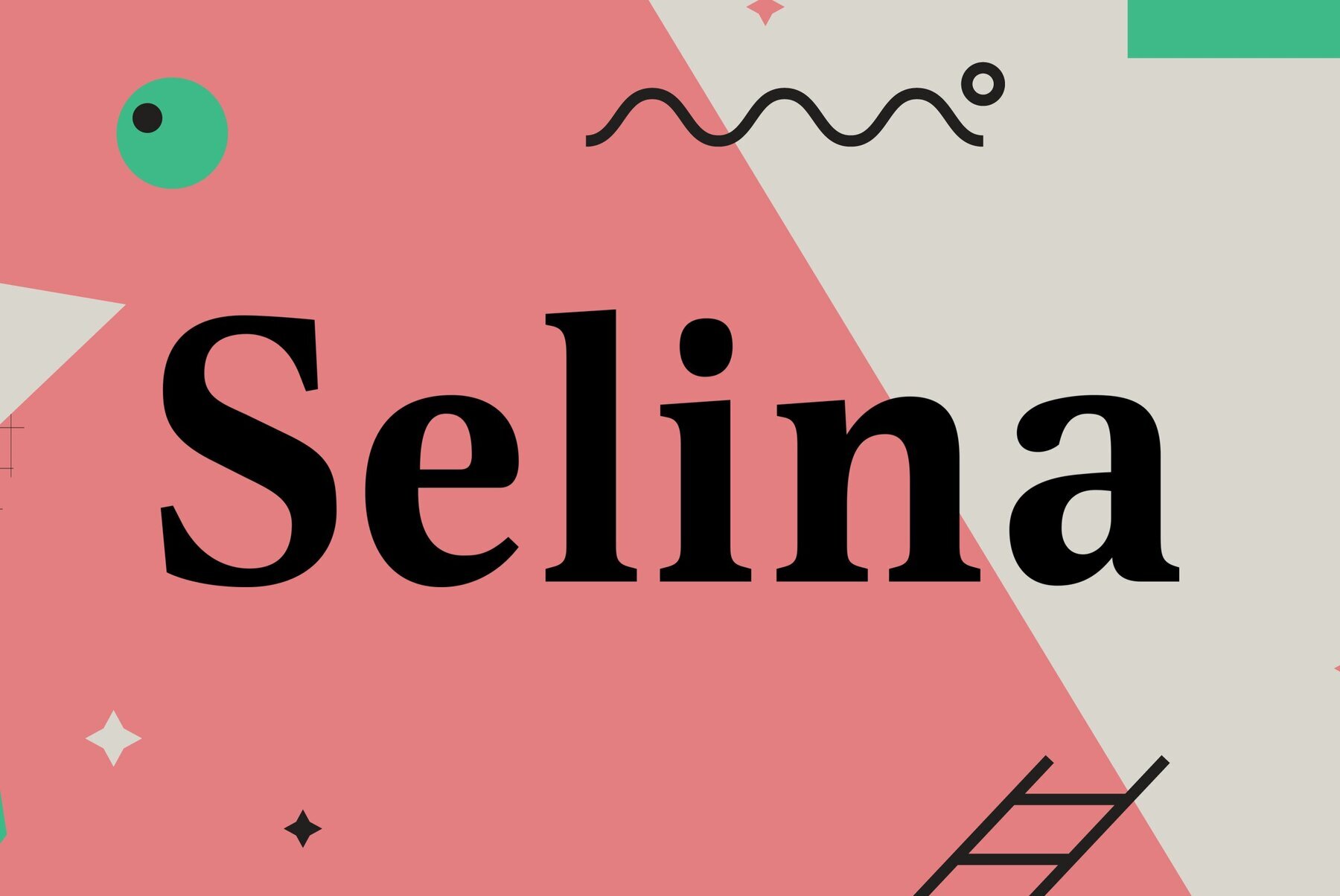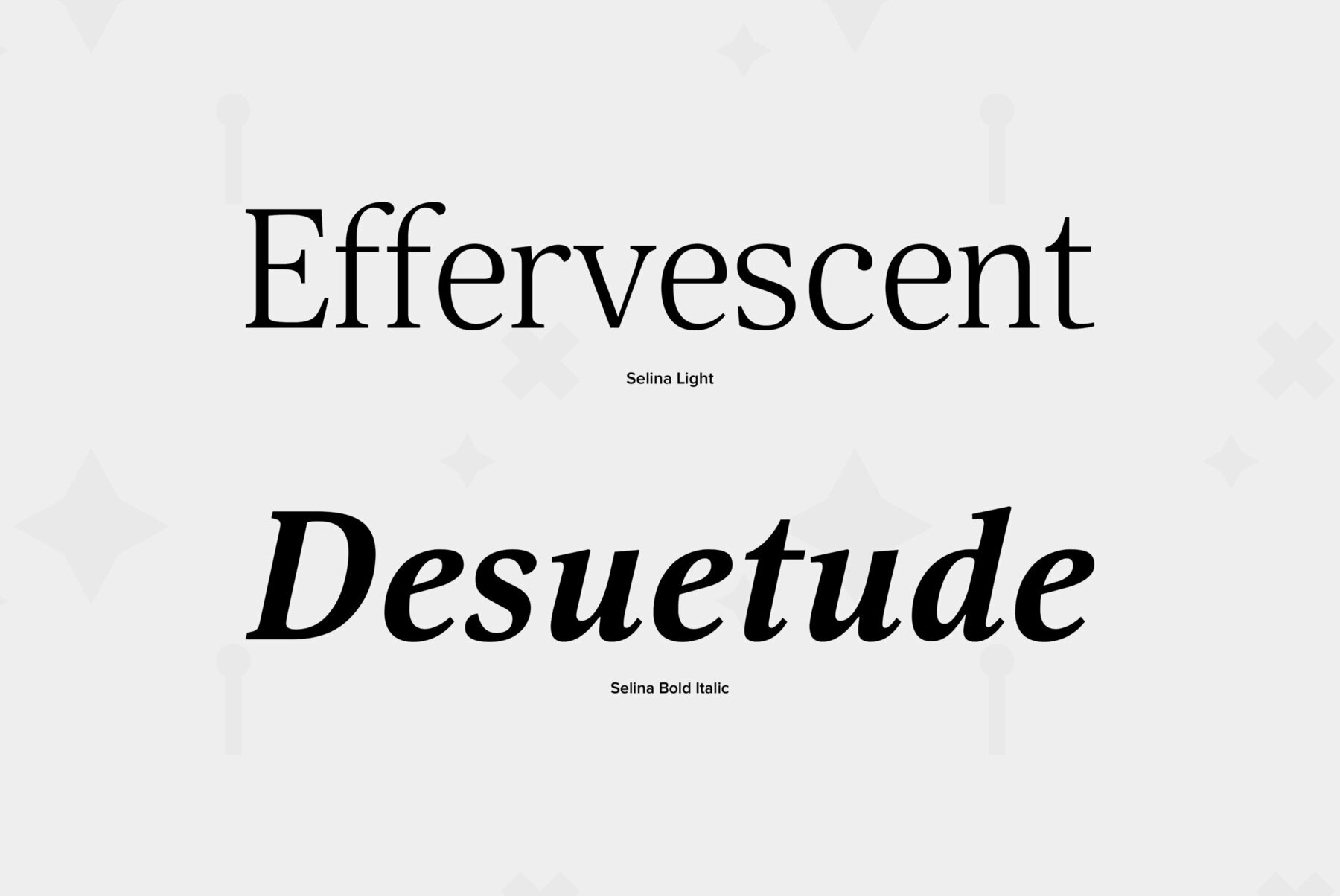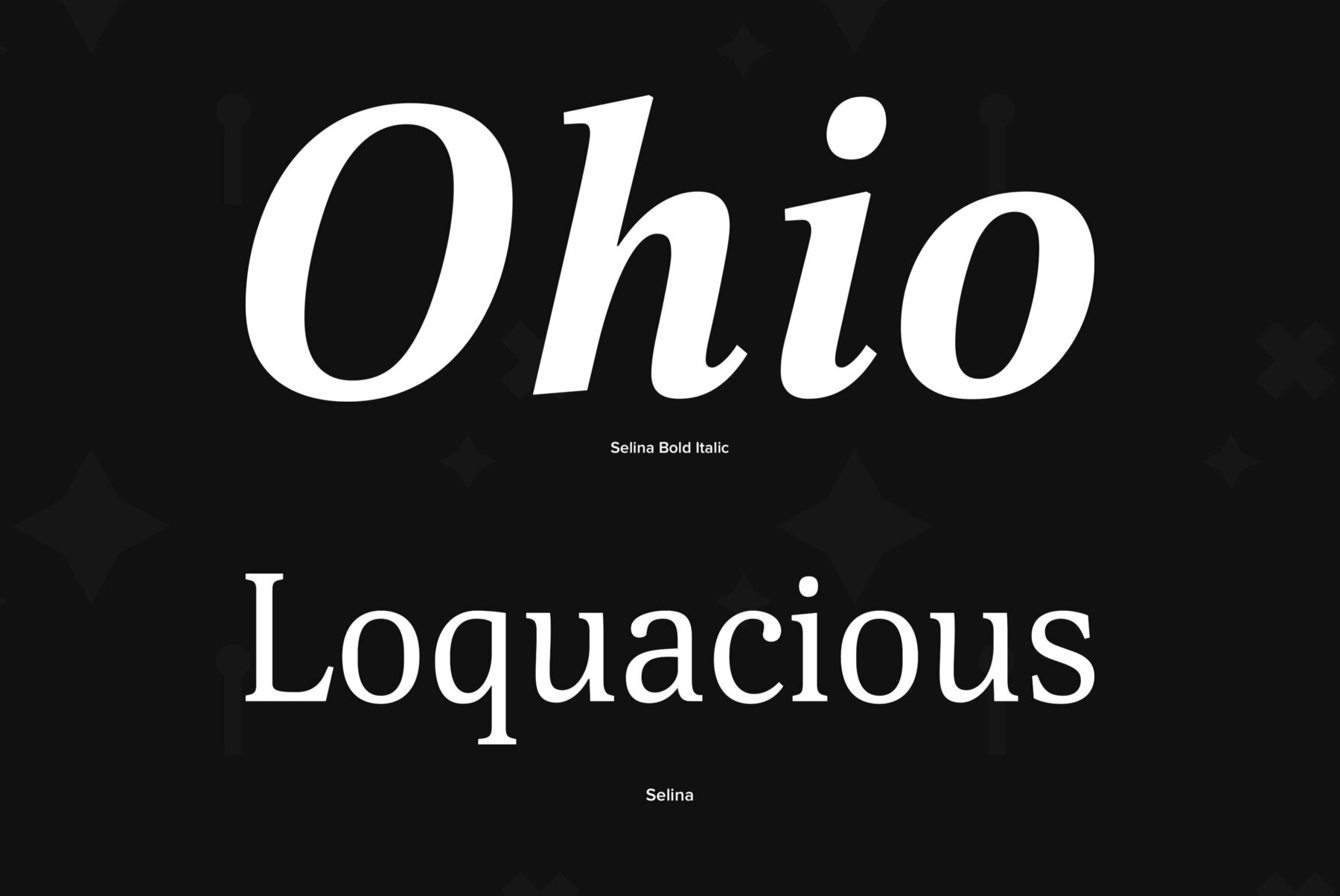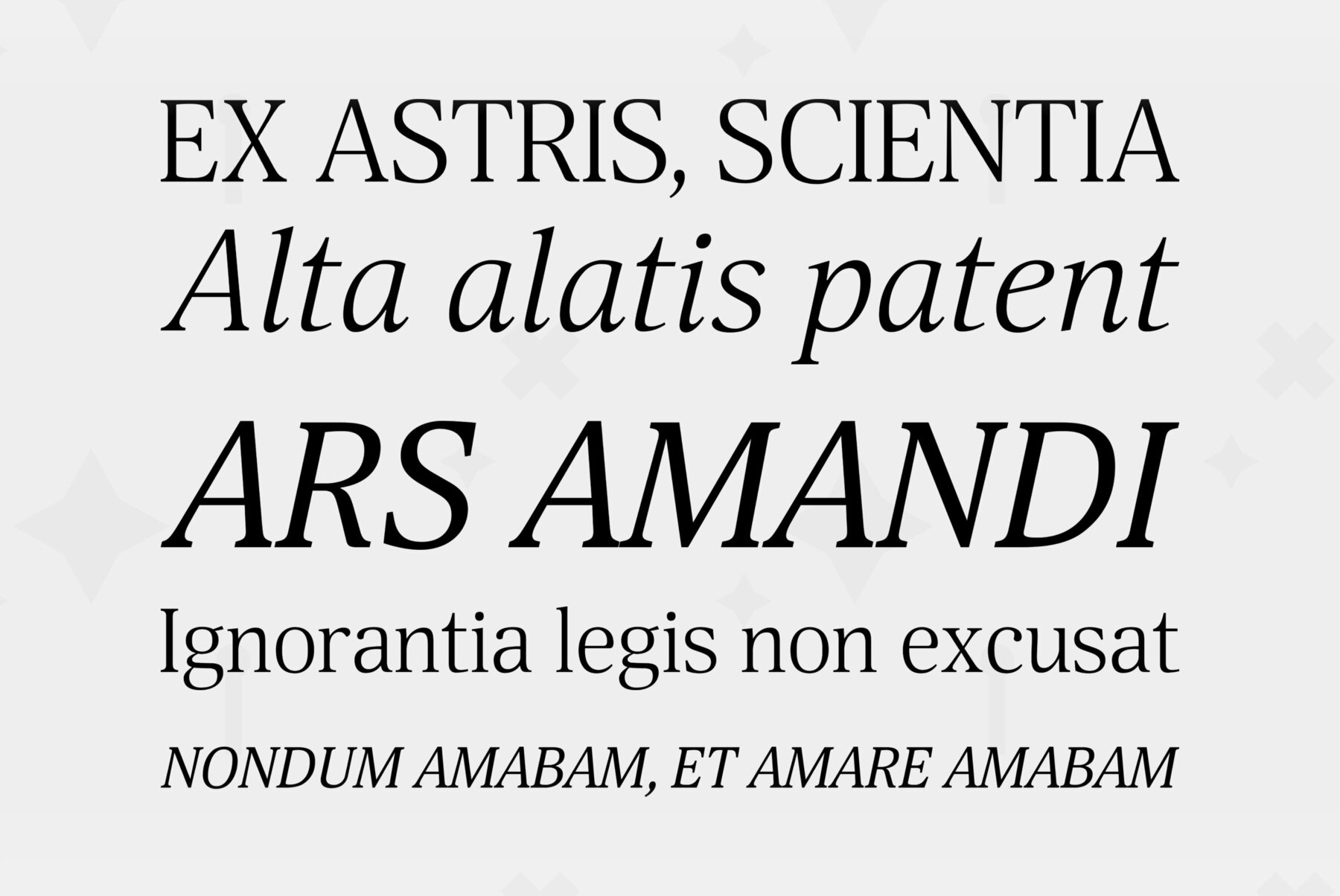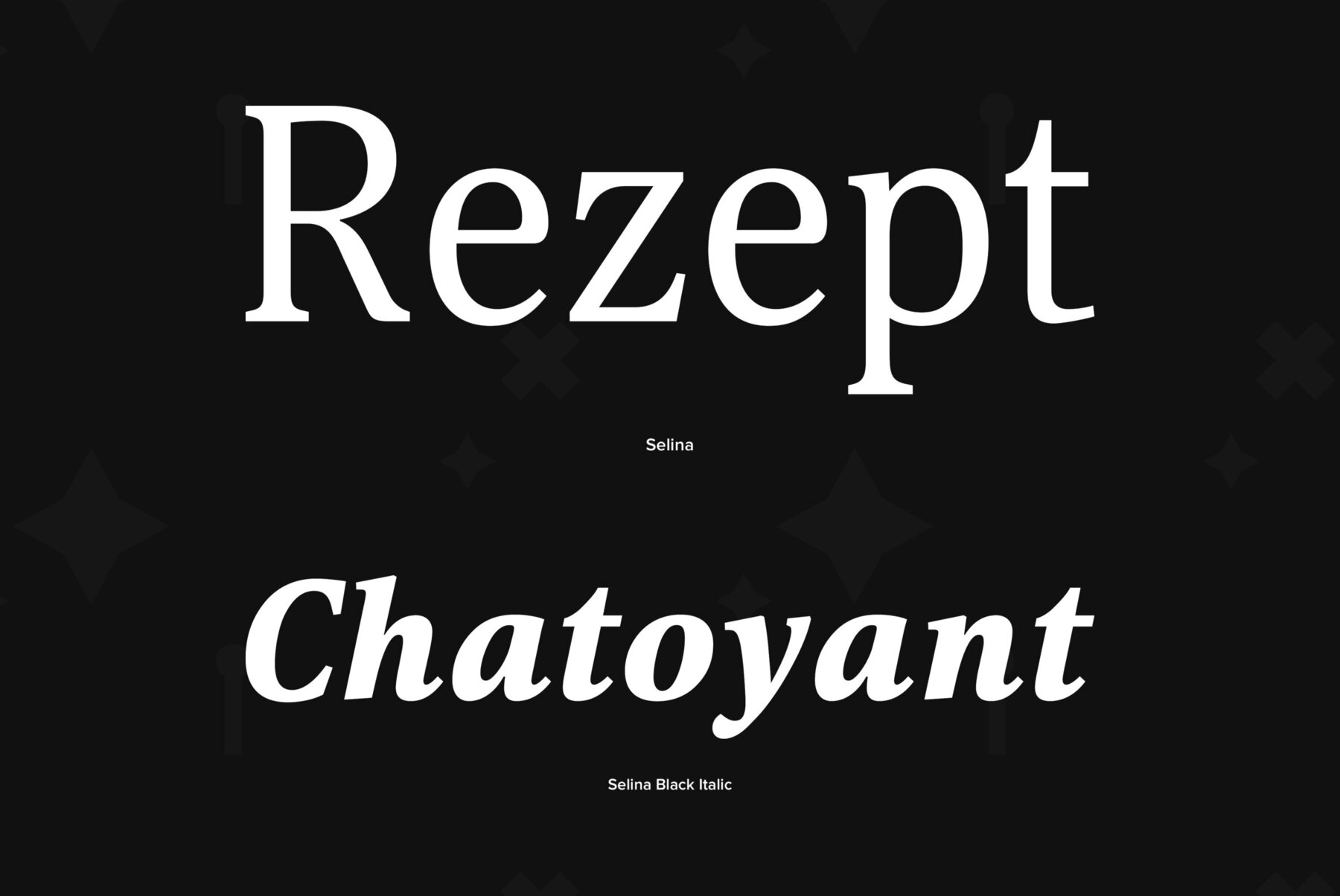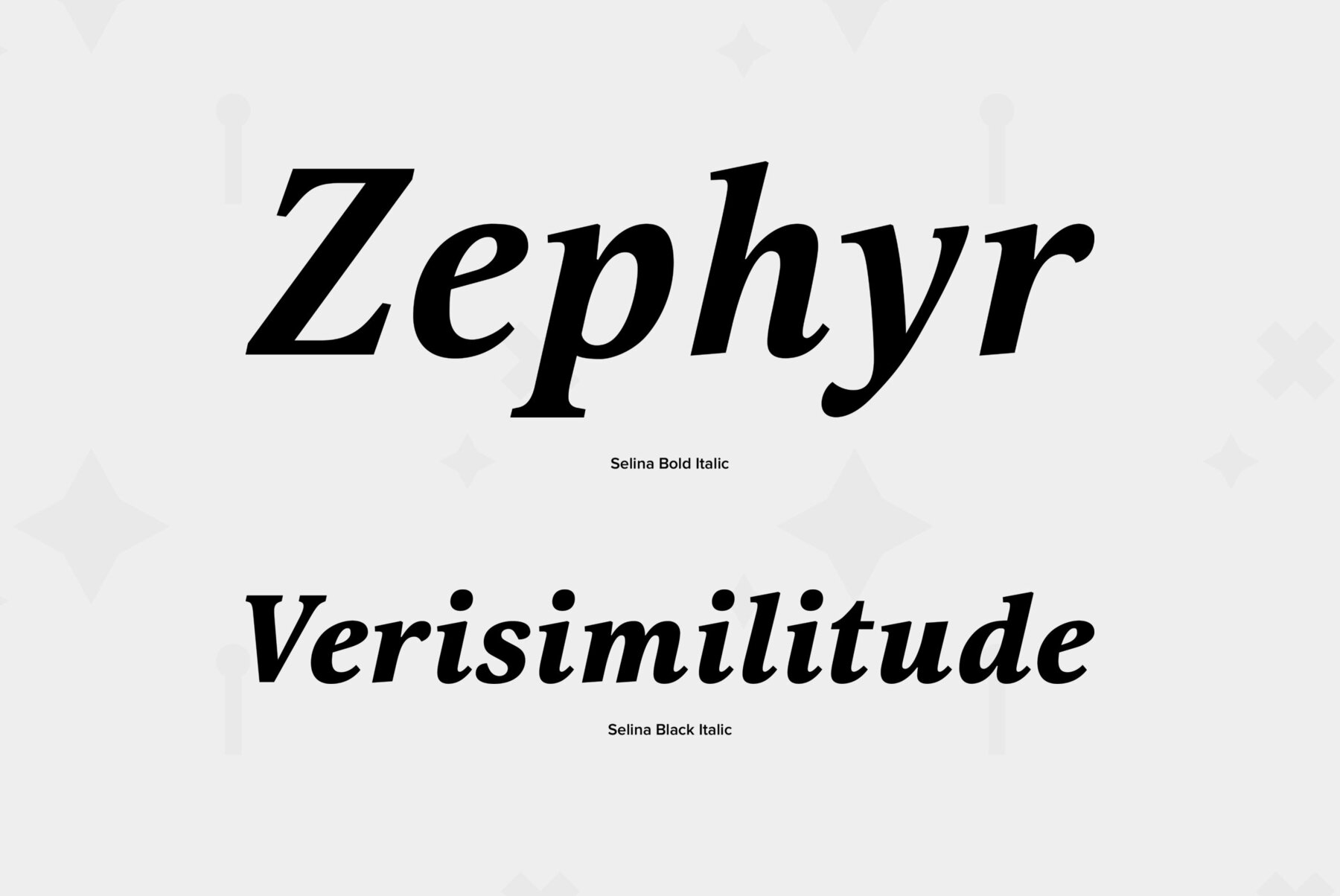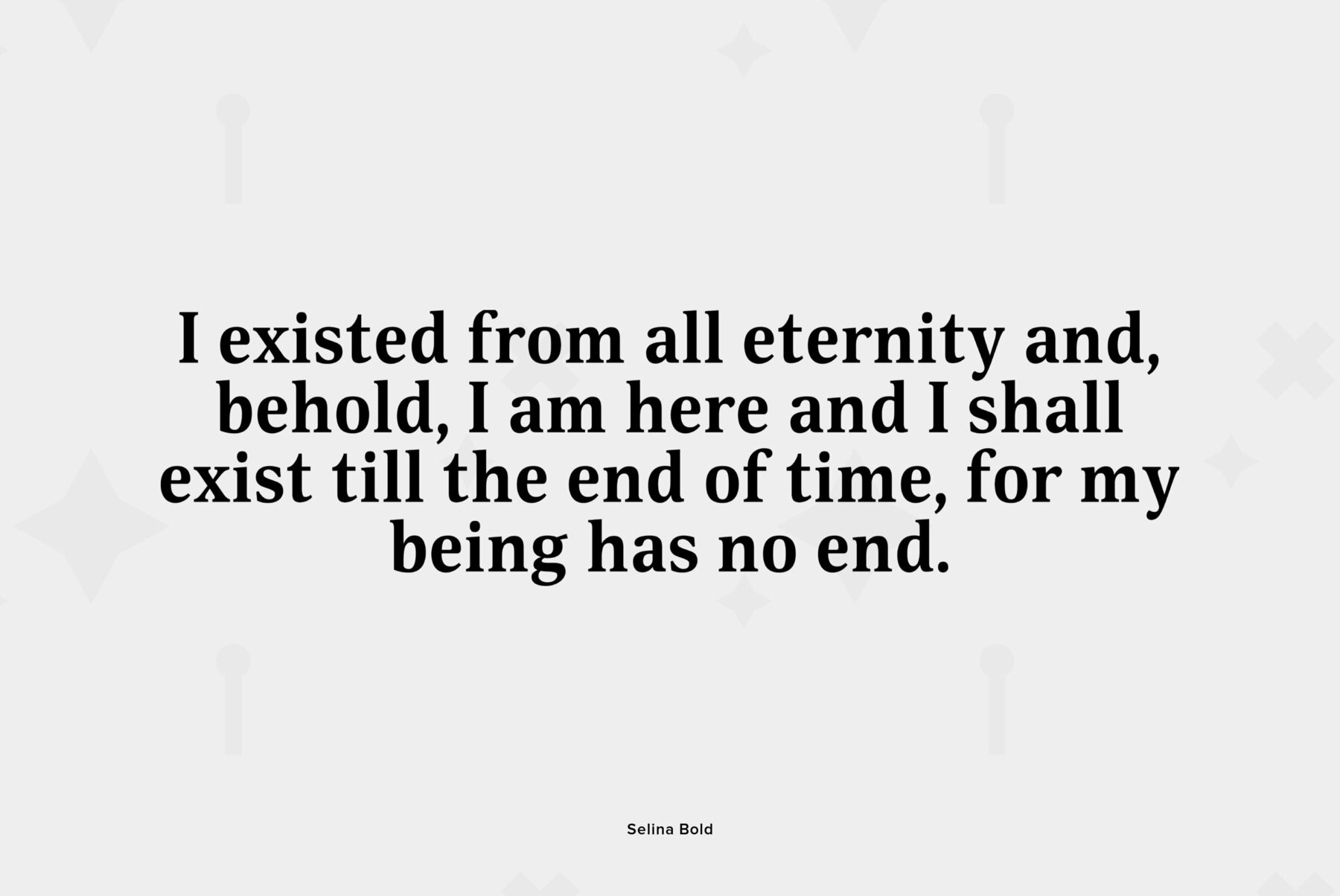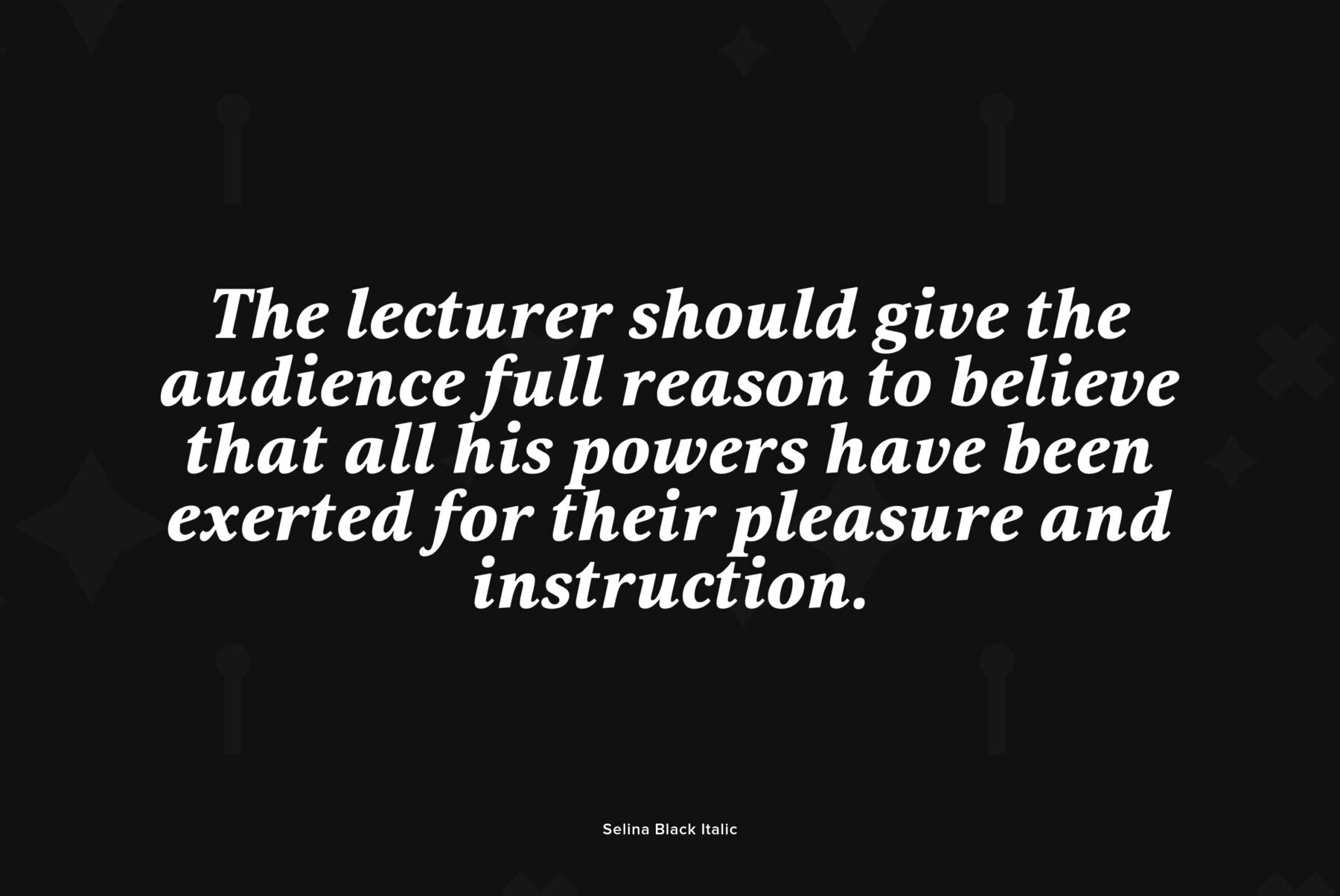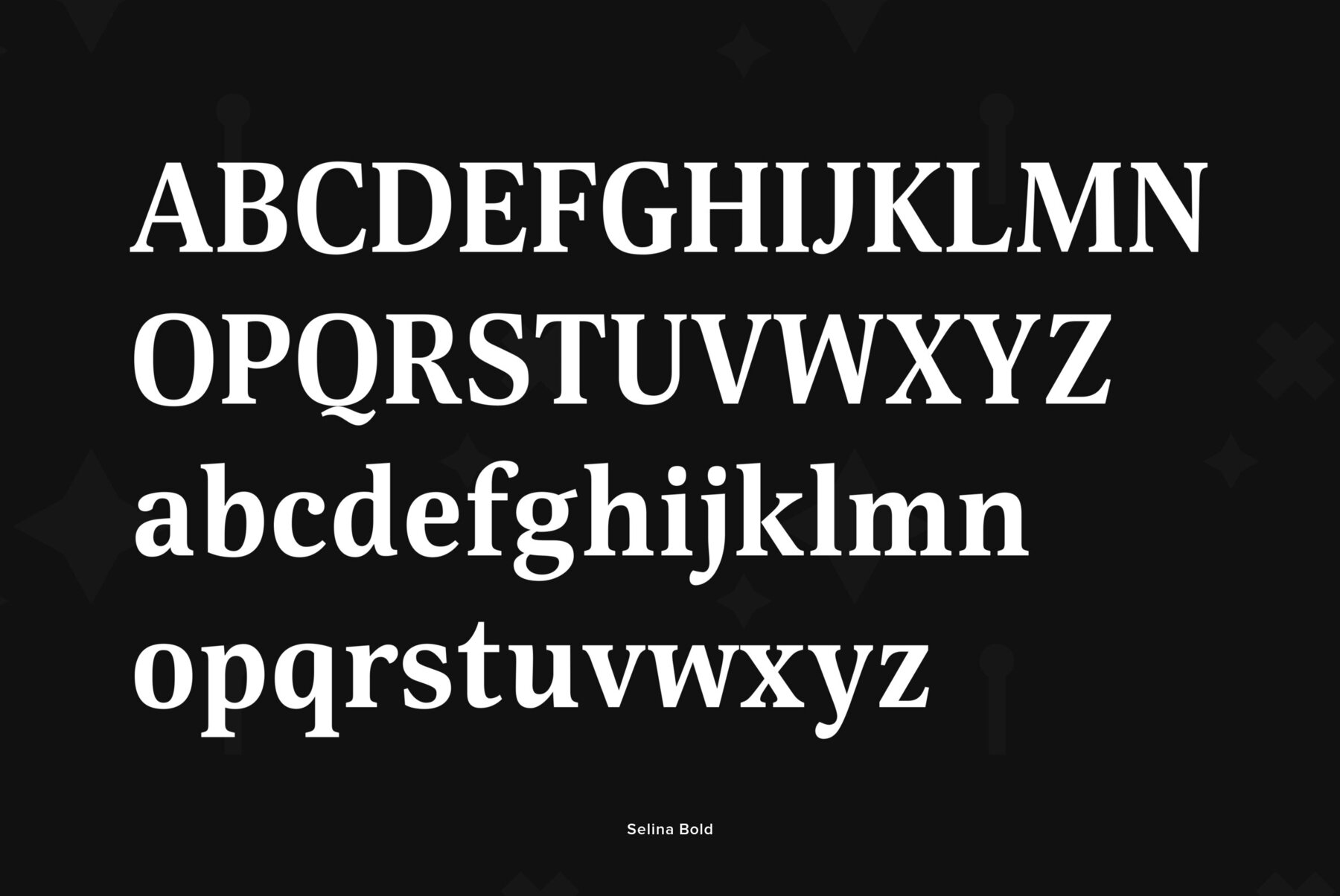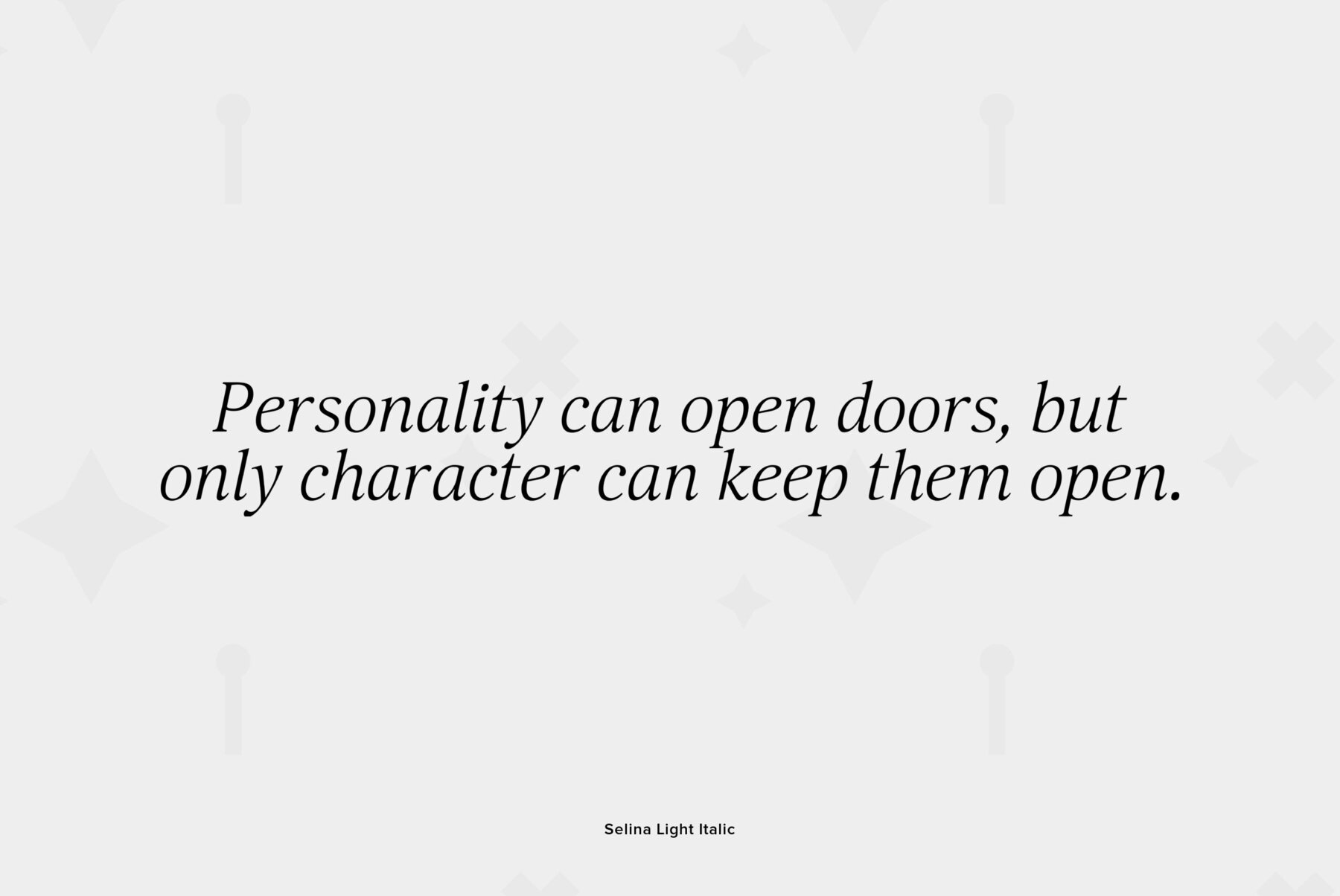
A universal text type was designed by Natalia Vasilyeva for ParaType in 2007. The type family is consist of 8 styles. Also corresponding decorative italic with calligraphic swash capitals was developed. The type has low contrast characters and narrow proportion. It is rather space-saved but very legible even in small sizes. For using in text and display typography. The upgraded version with extended character set was released in 2010.